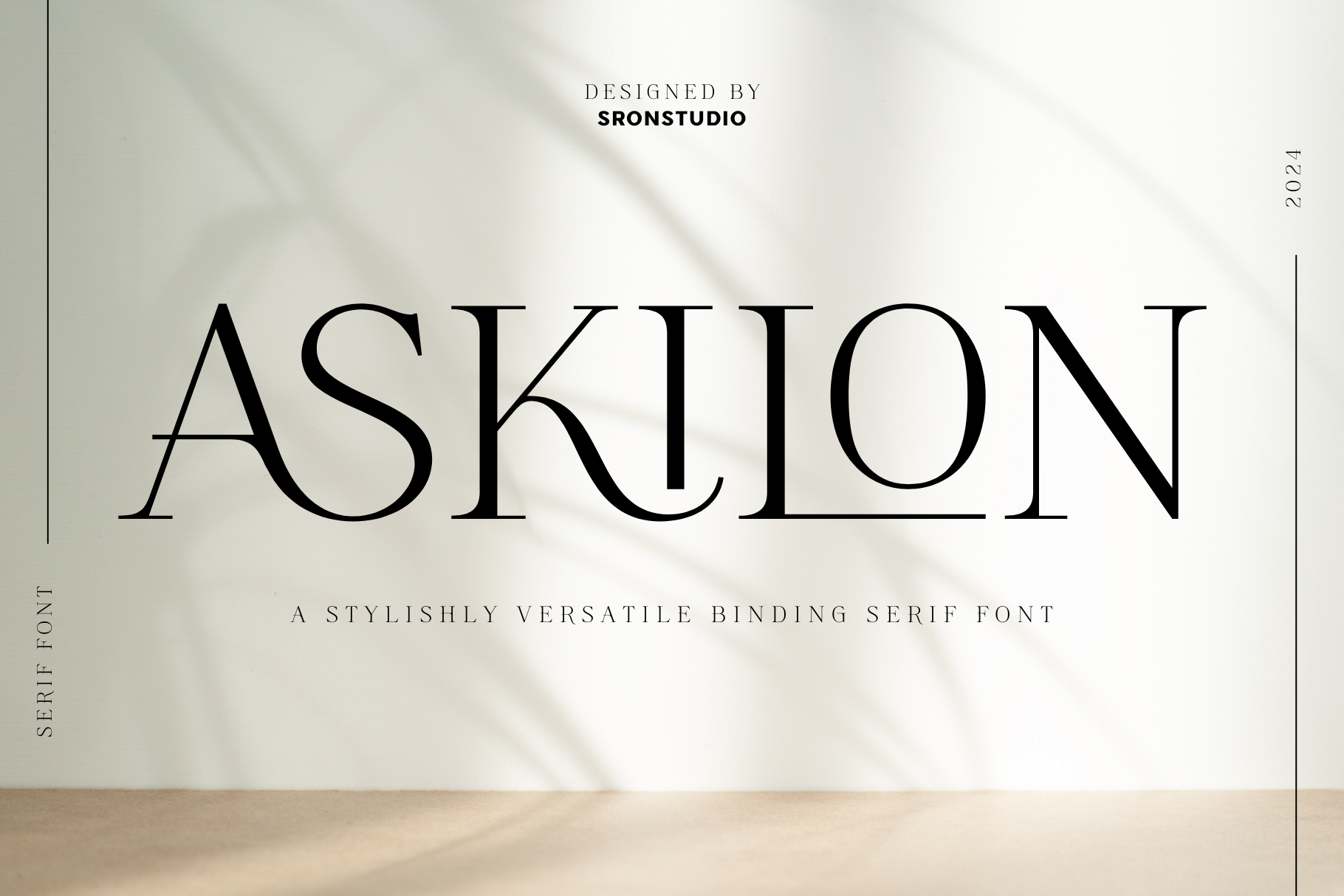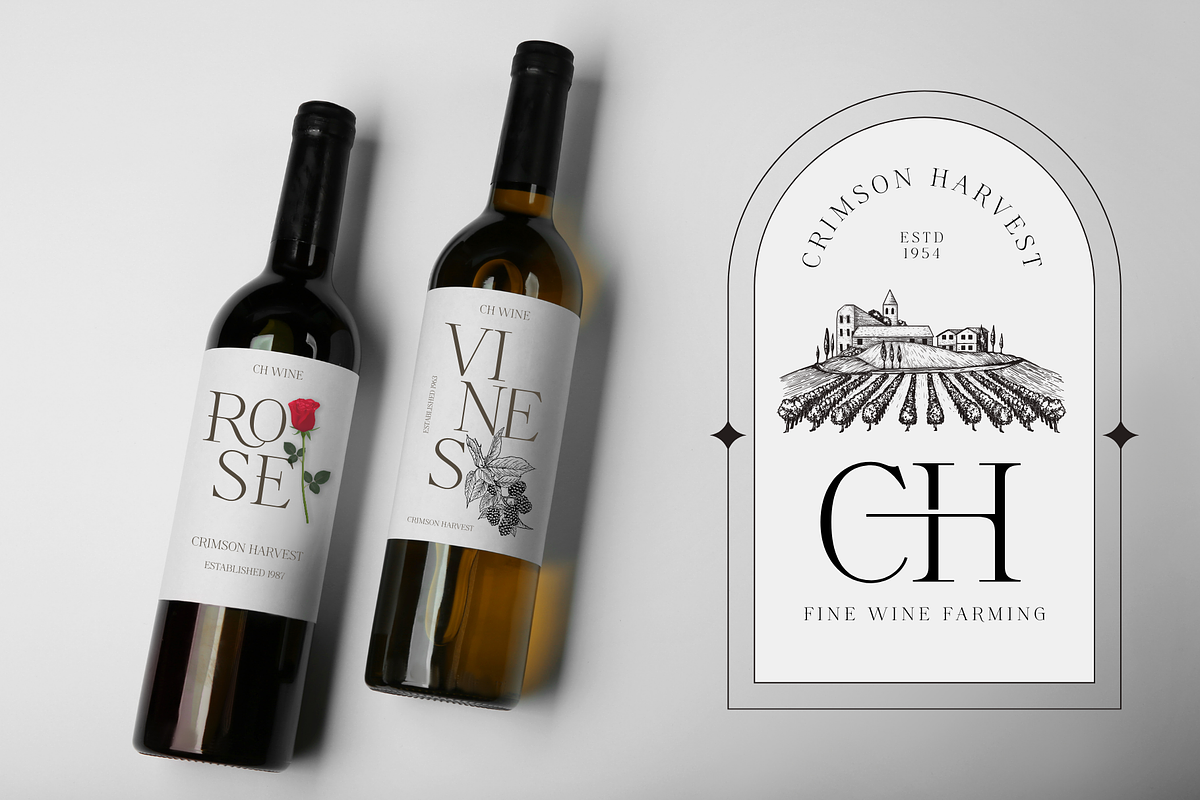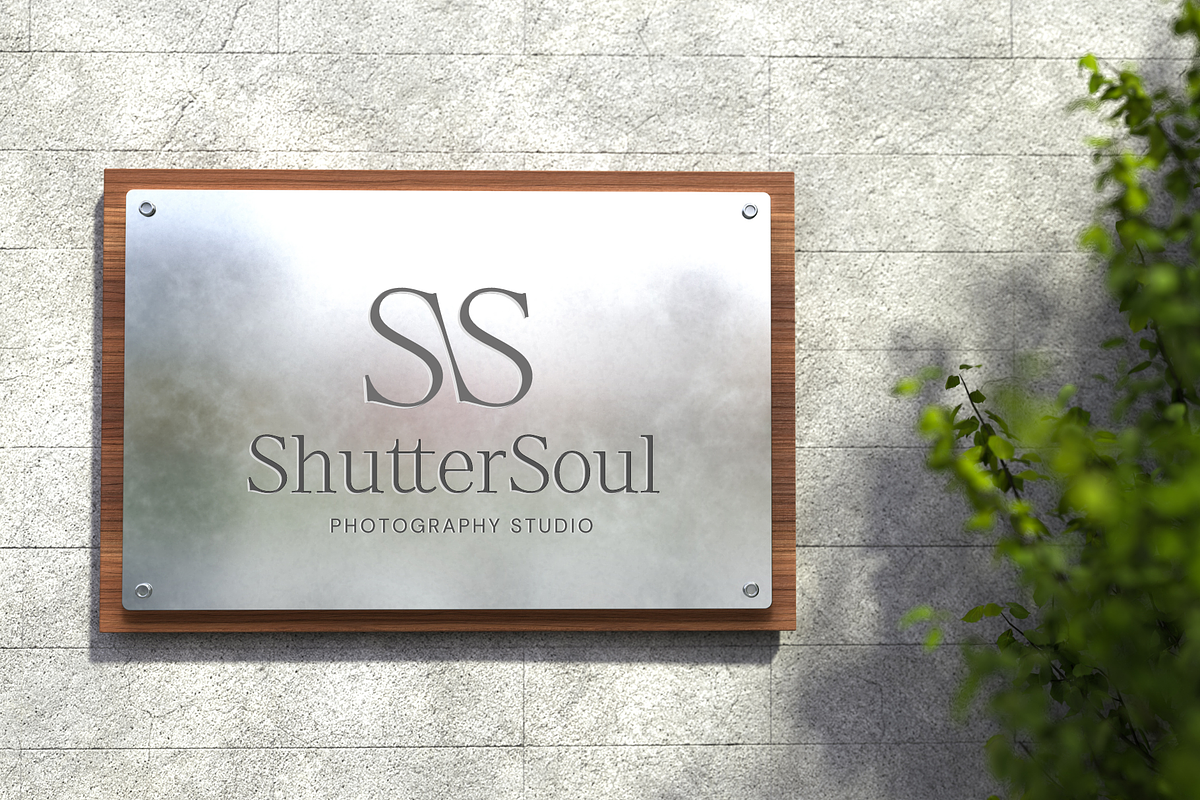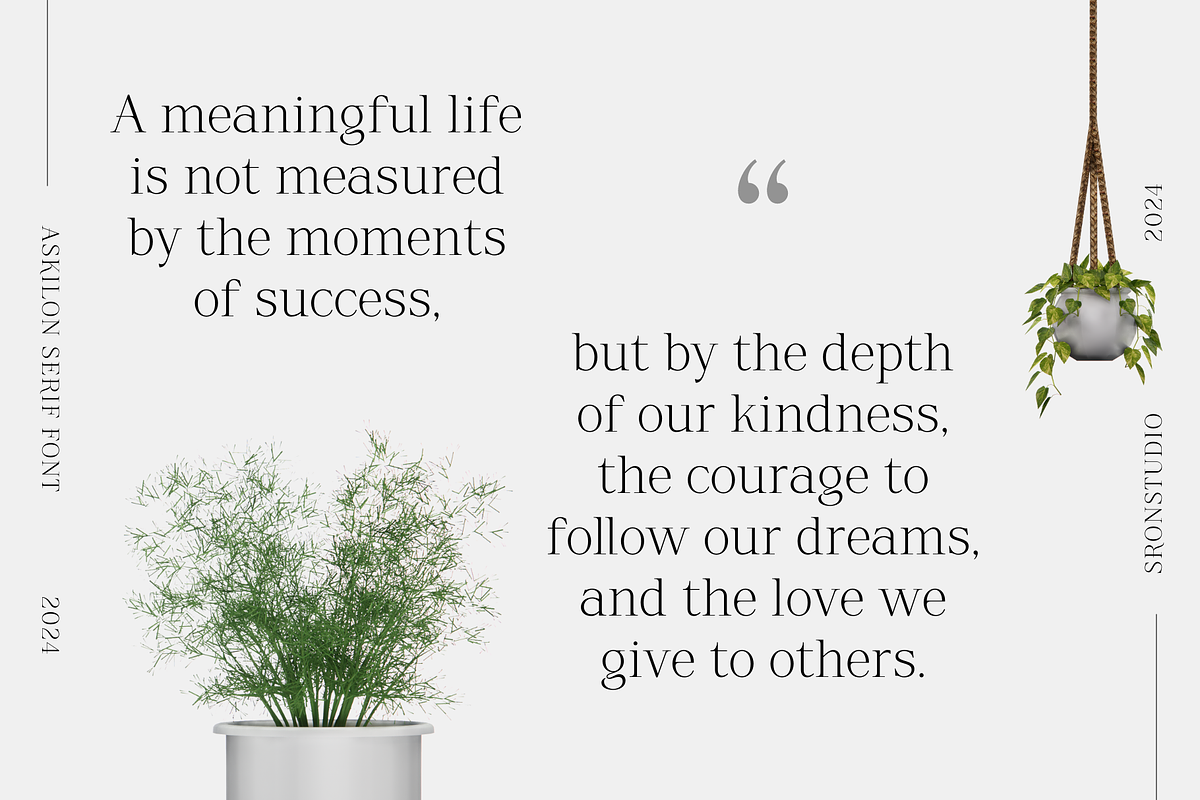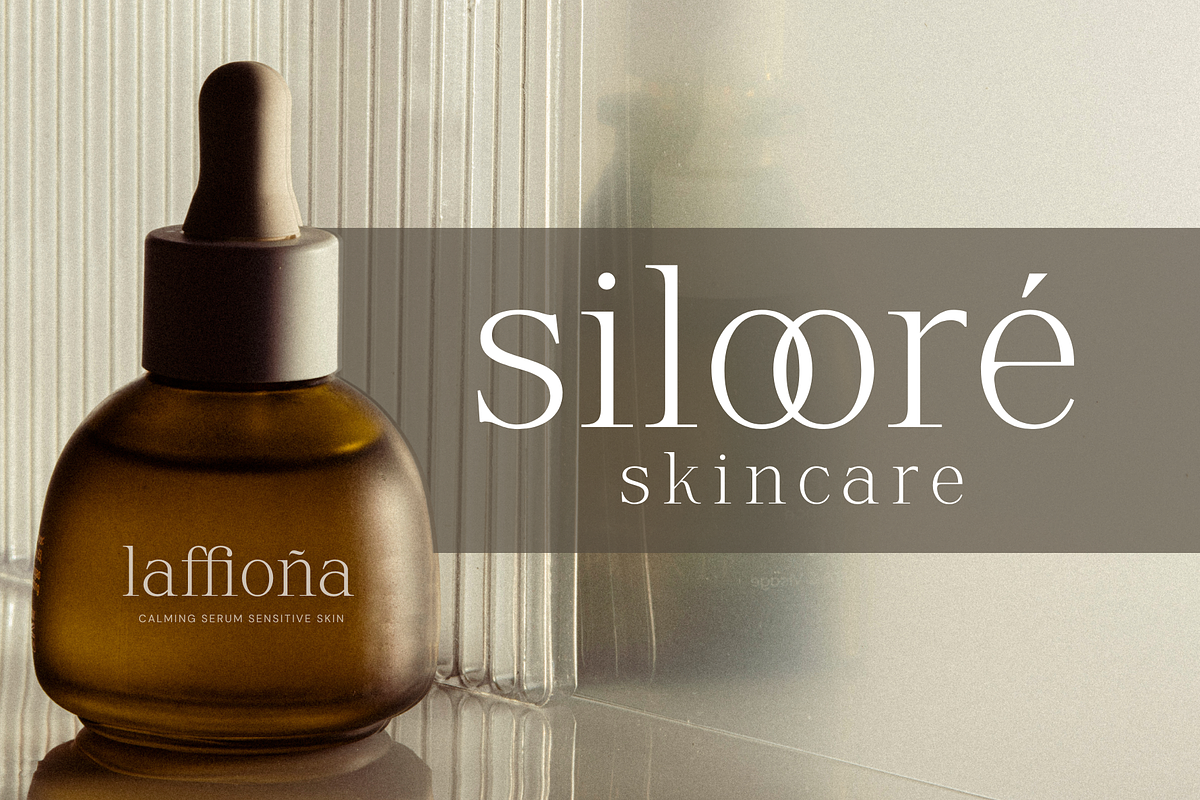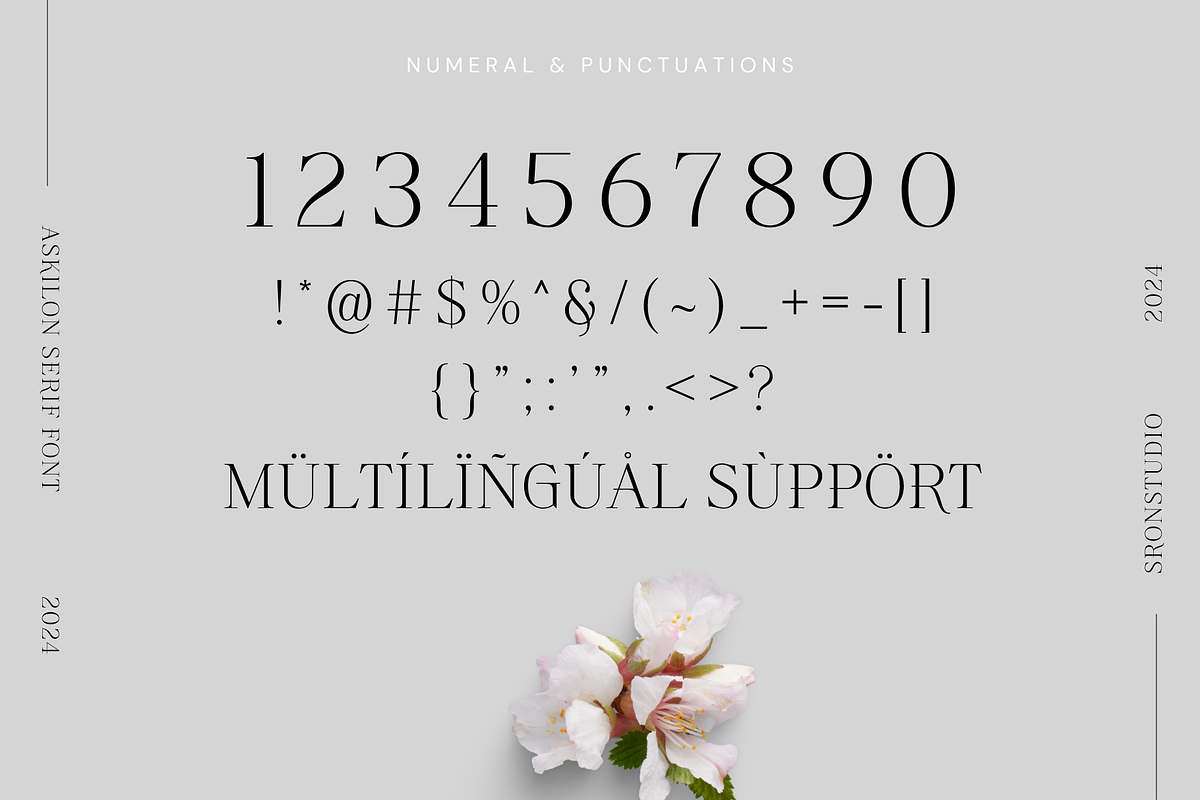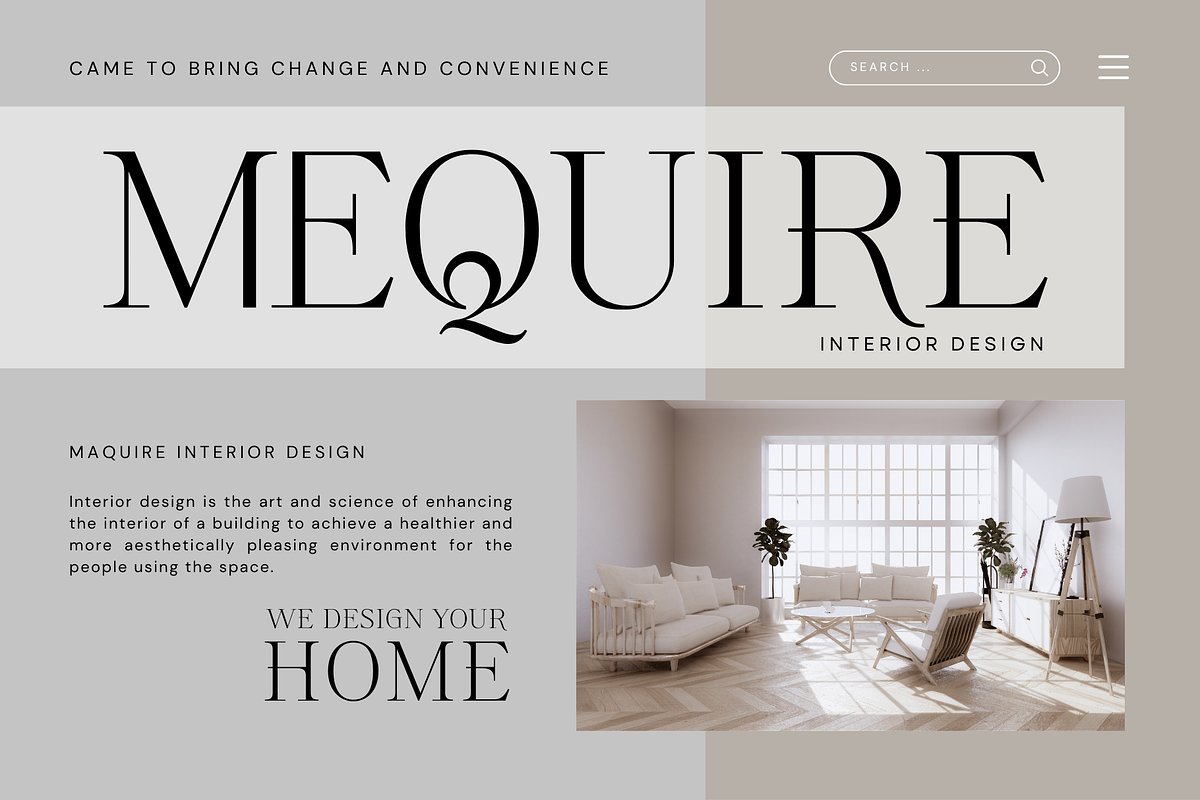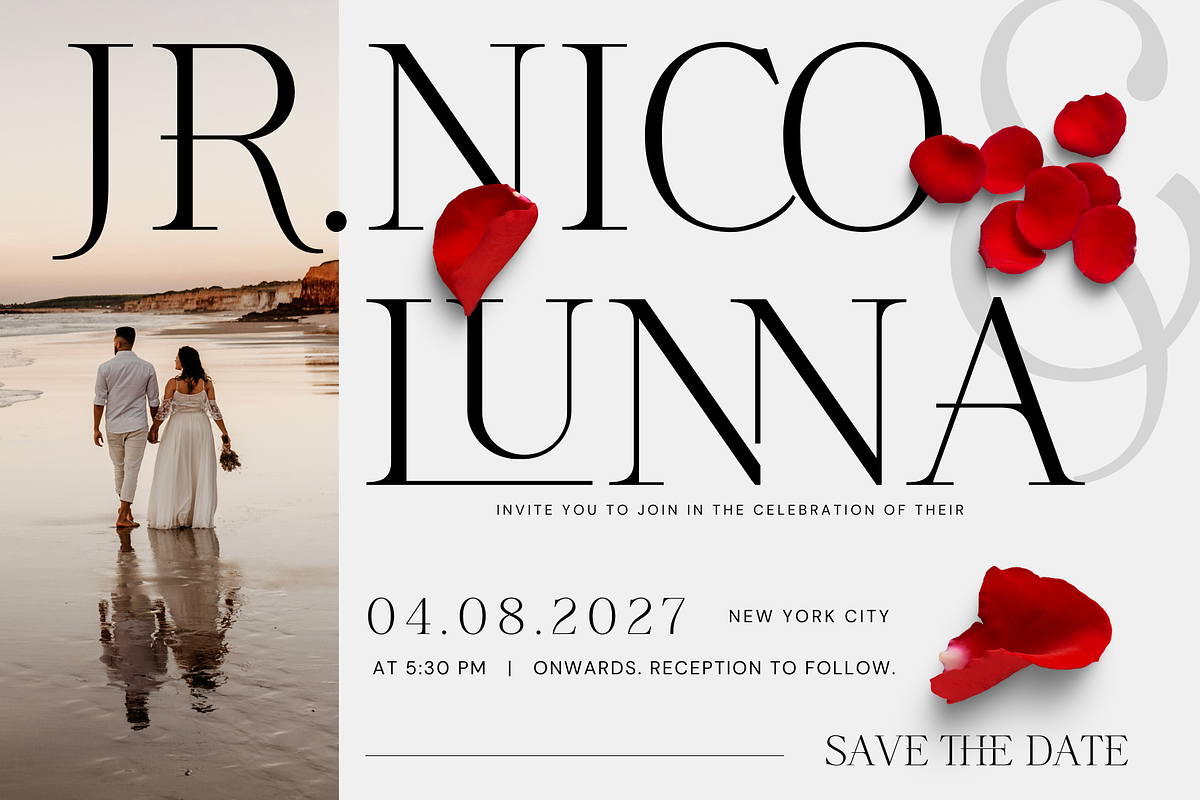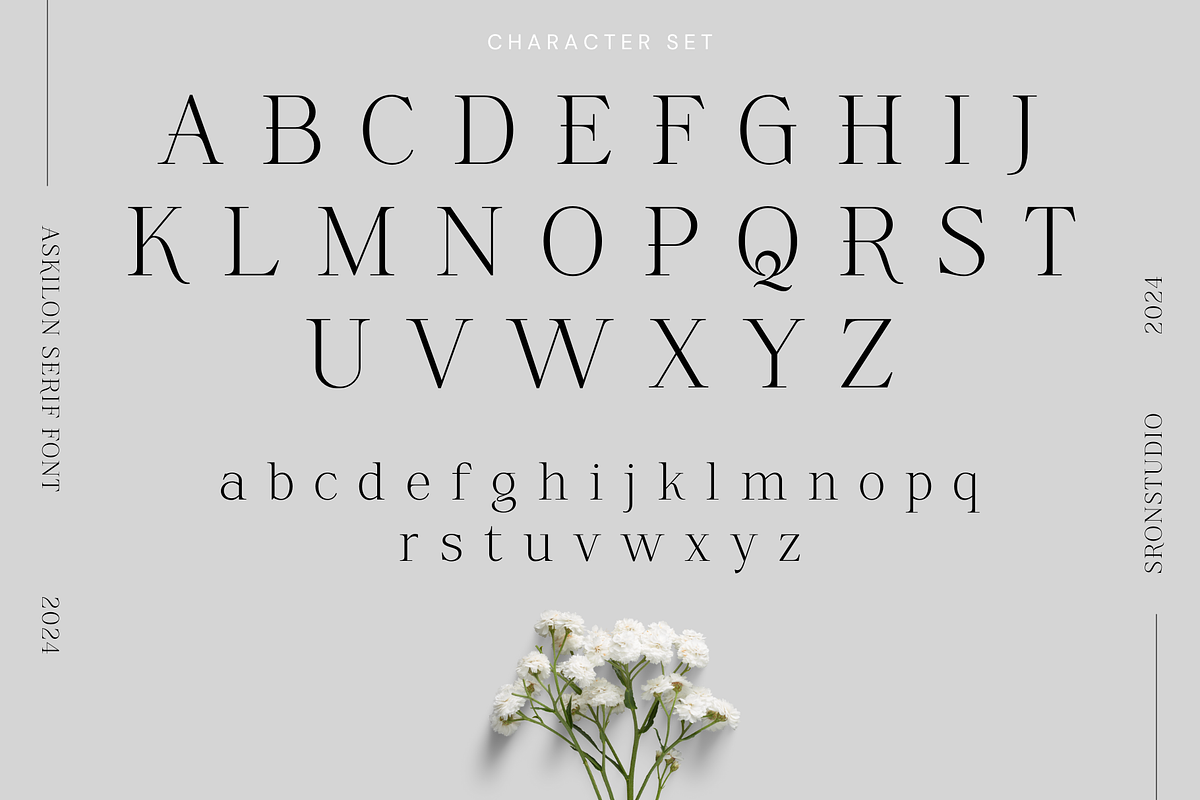
Askilon - Beautiful Serif Font
Askilon is a beautiful serif font that exudes elegance and sophistication. With its graceful curves and refined details, this font is perfect for luxury branding, editorial design, and high-end packaging. Askilon brings a timeless charm to any project, making it ideal for those looking to make a bold yet classic impression